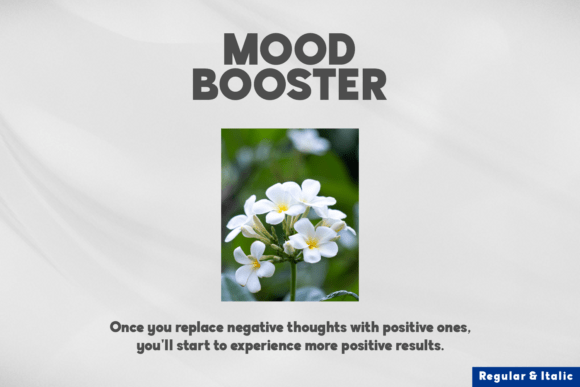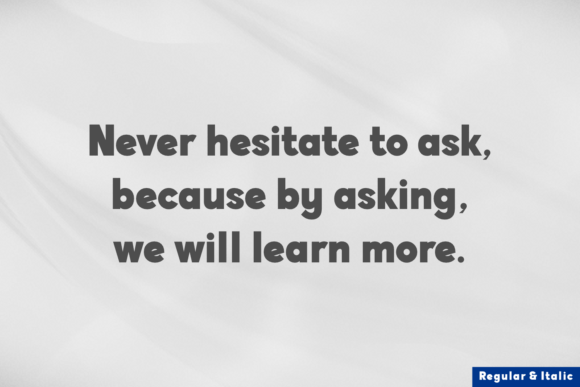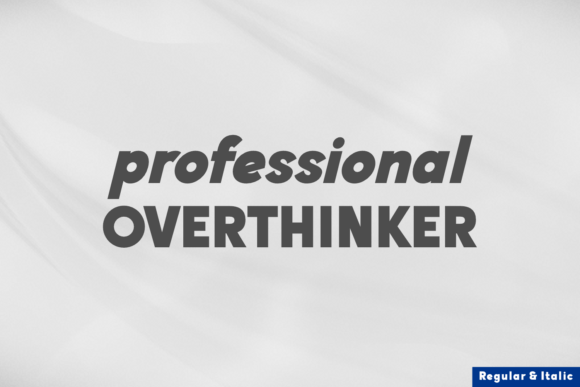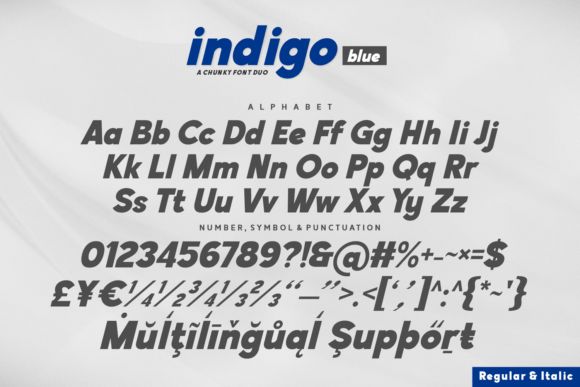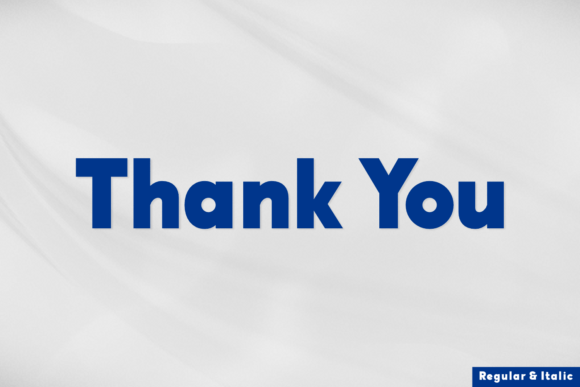
Introduction to Indigo Blue Font
Do you remember that moment when a single design element sparked an entire creative project? For designers, it’s often the smallest details that make the biggest impact. And for us, it’s the Indigo Blue Font that sets the stage for something truly special. This elegant Sans Serif font has been a game-changer in the world of design, offering a unique blend of modernity and sophistication that’s hard to resist.
| 📌 Product Name | Indigo Blue Font |
| 👤 Author | Anto (7NTypes) |
As a valuable resource for designers, the Indigo Blue Font provides a high-quality design solution that’s both versatile and easy to use. With its seamless transitions and smooth contouring, it’s perfect for a wide range of creative projects, from book covers to magazine layouts. And with full multilingual support, you can express yourself in style, no matter what language you speak.
Key Features of Indigo Blue Font
- High-quality, professional design perfect for creative projects and design resources.
- Features a transparent background, allowing for seamless integration with any design or layout.
- Unique, elegant design that adds a touch of sophistication to any creative project or design resource.
Honest Review: Indigo Blue Font
I recently stumbled upon the Indigo Blue Font and I have to say, I’m quite impressed. This free download is a great resource for any creative project that requires a sophisticated, yet elegant touch.
- ✨ High-quality design: The font is crisp, clean, and beautifully crafted.
- ✨ Versatility: The Indigo Blue Font is suitable for a wide range of design applications, from digital to print.
- ✨ Transparent background: This allows for seamless integration with any background or image.
- ⚠️ Limited font styles: The Indigo Blue Font only comes in a few styles, which may limit its versatility in certain projects.
- ⚠️ Not suitable for very small text: Due to its elegant design, the font may not be the best choice for very small text sizes.
Overall, I’m quite pleased with the Indigo Blue Font. It’s a high-quality design resource that can add a touch of sophistication to any creative project. While it may have some limitations, it’s definitely worth checking out for any designer looking for a free download with a lot of character.
The Indigo Blue Font is perfect for a variety of creative projects, including logos, posters, social media graphics, and more. It’s also great for use in presentations, reports, and other documents where a high-quality, professional font is needed.
Does the Indigo Blue Font have a transparent background?
Yes, the Indigo Blue Font has a transparent background, making it perfect for use on dark backgrounds or in situations where a clear background is required. This feature allows designers to create high-quality designs with a professional finish.